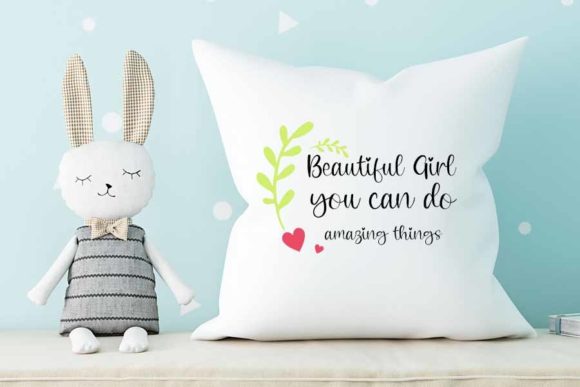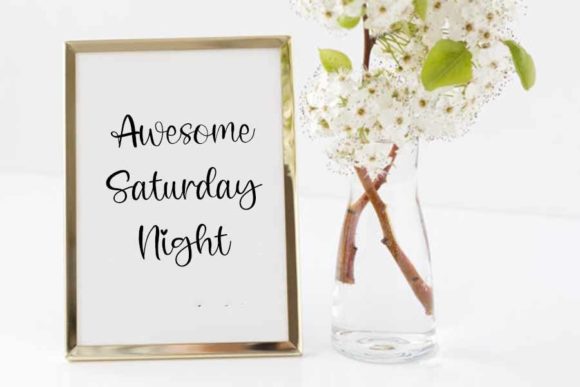
Hillary Font
db-ku.com - Script & Handwritten -- Hillary is a thin and beautiful handwritten font. Its distinct and well rounded letters make this font a masterpiece. This versatility will appeal to a wide range of crafty ideas, from letterheads and titles, to stationery.